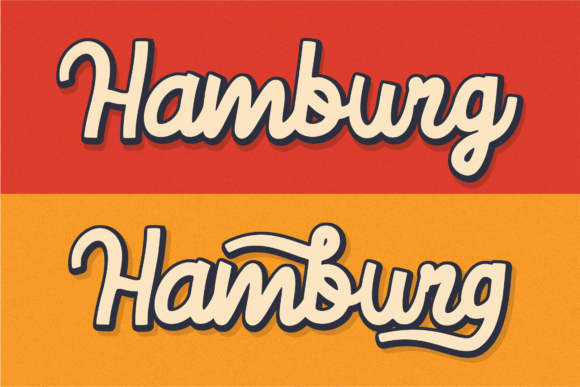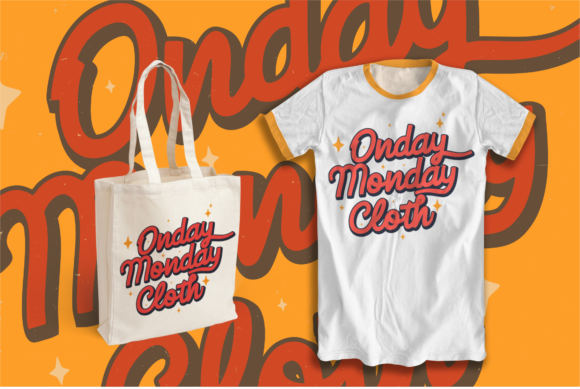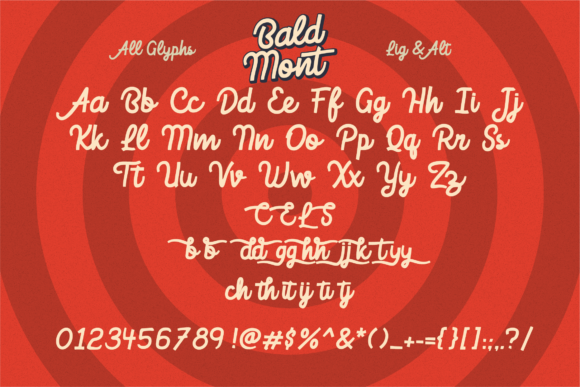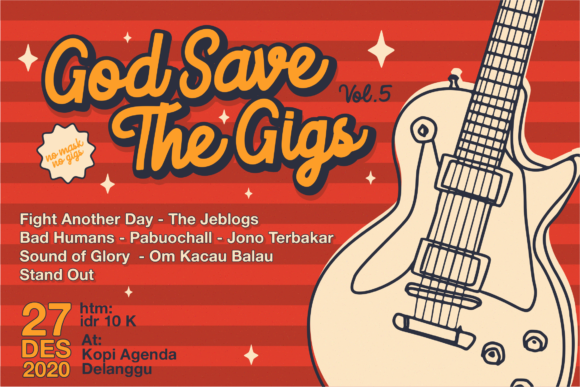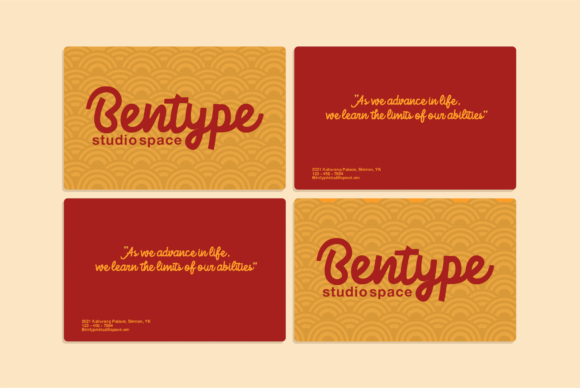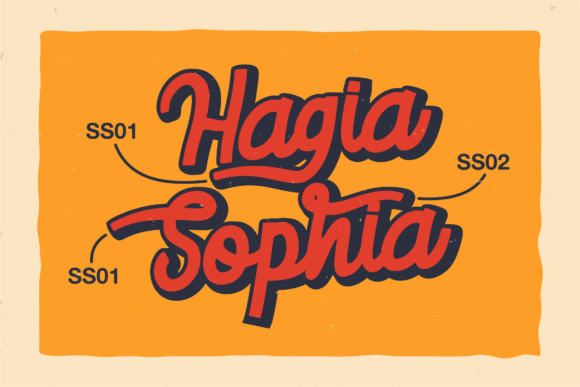
Bald Mont Font: Elevate Your Designs with a Retro Touch
In the world of typography, a well-crafted font can make all the difference in bringing a design to life. For designers and crafters looking to add a touch of nostalgia and personality to their work, the Bald Mont font is an excellent choice. This gorgeous and bold handwritten font is specifically designed to give headlines and logotype projects a retro flair that’s sure to capture attention.
The Characteristics of Bald Mont Font
Bald Mont font reads as strong, confident, and dynamic, making it perfect for designers who want to make a statement. Its bold and handwritten style exudes a sense of nostalgia, reminiscent of classic signage and vintage posters. The font’s unique character is crafted to add tons of personality to your designs, setting it apart from more generic and bland typography options.
Key Features of Bald Mont Font
- Bold and Handwritten Style: The Bald Mont font boasts a bold and handwritten style that’s perfect for creating eye-catching headlines and logotypes.
- Retro Touch: The font’s design is inspired by classic typography, giving it a nostalgic feel that’s sure to appeal to designers looking for a vintage aesthetic.
- Strong and Confident: The Bald Mont font reads as strong and confident, making it perfect for designers who want to make a statement with their typography.
- Dynamic and Versatile: The font’s unique character makes it versatile enough to be used in a wide range of design projects, from posters and signage to logos and branding materials.
Using Bald Mont Font in Your Designs
So, how can you use the Bald Mont font to elevate your designs? Here are a few ideas to get you started:
- Headlines and Titles: Use the Bald Mont font to create bold and eye-catching headlines that grab attention and draw the reader in.
- Logos and Branding: The font’s unique character makes it perfect for creating memorable logos and branding materials that stand out from the crowd.
- Posters and Signage: The Bald Mont font is well-suited for use in posters and signage, where its bold and retro style can help grab attention and communicate a message.
- Packaging and Product Design: Consider using the Bald Mont font in packaging and product design to add a touch of personality and whimsy to your products.
Tips for Getting the Most Out of Bald Mont Font
To get the most out of the Bald Mont font, here are a few tips to keep in mind:
- Experiment with Color: The Bald Mont font looks great in a wide range of colors, so don’t be afraid to experiment and find the perfect hue to match your brand or design aesthetic.
- Play with Texture and Patterns: Adding texture and patterns to your design can help take the Bald Mont font to the next level and add even more visual interest.
- Mix and Match with Other Fonts: The Bald Mont font pairs well with a wide range of other fonts, so feel free to experiment and find the perfect combination for your design.
In conclusion, the Bald Mont font is a versatile and stylish typography option that’s perfect for designers and crafters looking to add a touch of nostalgia and personality to their work. With its bold and handwritten style, retro touch, and strong and confident character, this font is sure to elevate your designs and help you stand out from the crowd. So why not give it a try and see the difference it can make in your next design project?